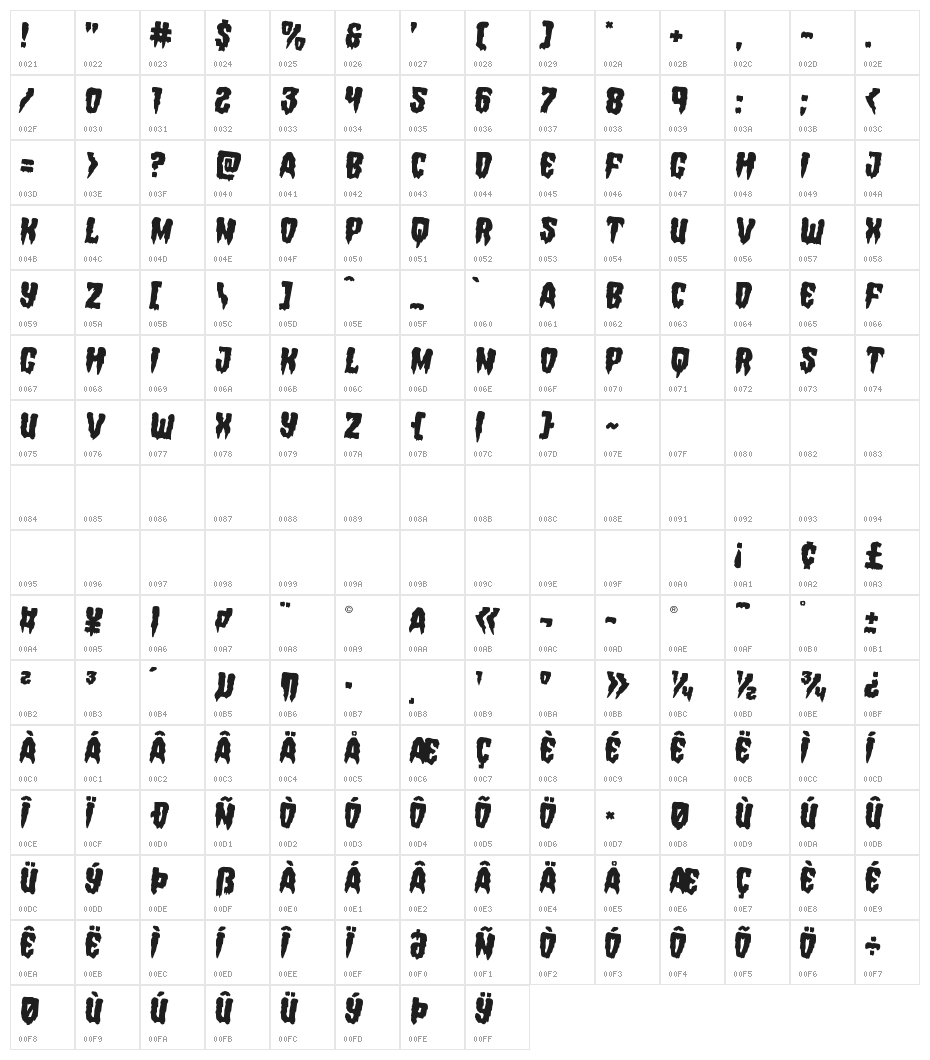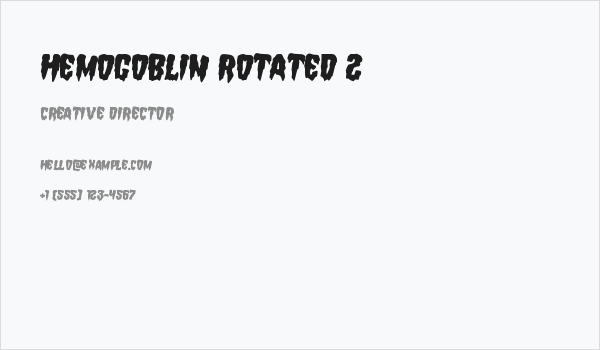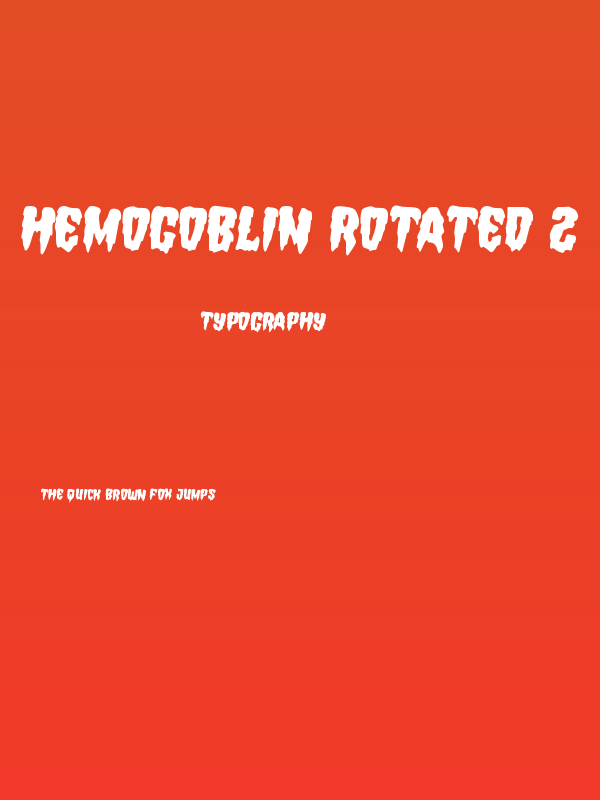
Hemogoblin Rotated 2 Font
Hemogoblin Rotated 2 Description
This font features a bold and jagged design, reminiscent of horror or thriller themes. The characters have an irregular, dripping appearance, giving them a dynamic and unsettling look. The uppercase and lowercase letters share a consistent style, with sharp edges and uneven strokes that create a sense of movement. The numbers and special characters follow the same design principles, maintaining the font's cohesive and dramatic aesthetic. This font is ideal for projects that require a striking and memorable visual impact.
| Proposed Projects | Ideal for horror movie posters, Halloween event flyers, video game titles, and any project requiring a dramatic, eerie aesthetic. |